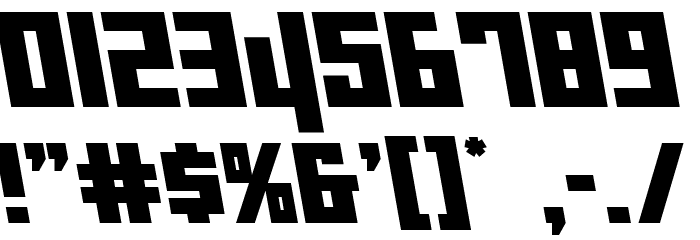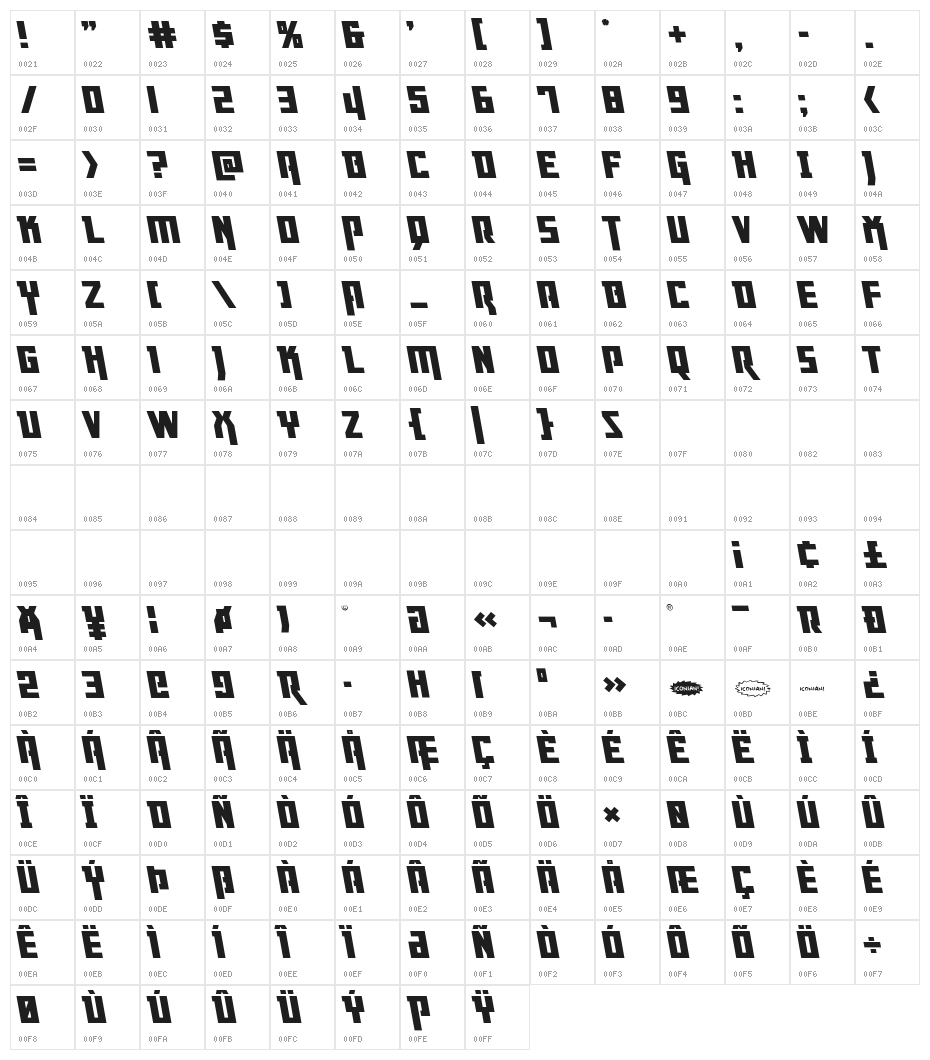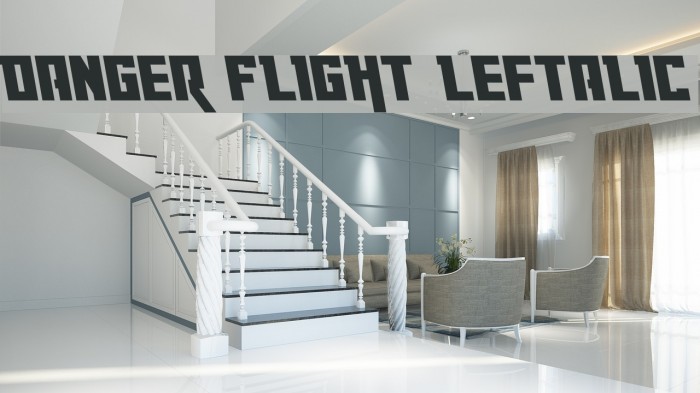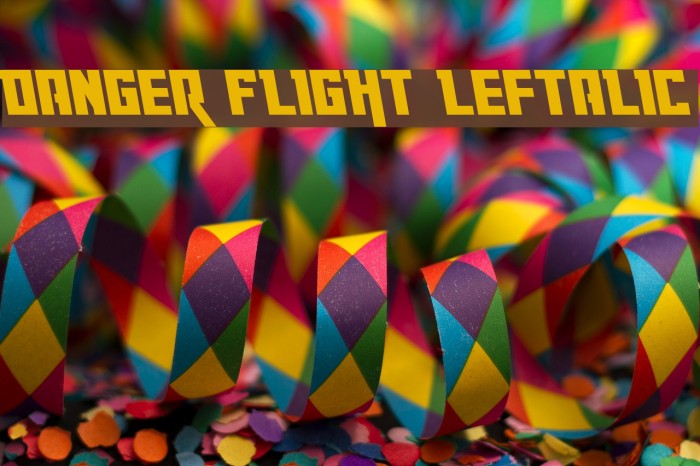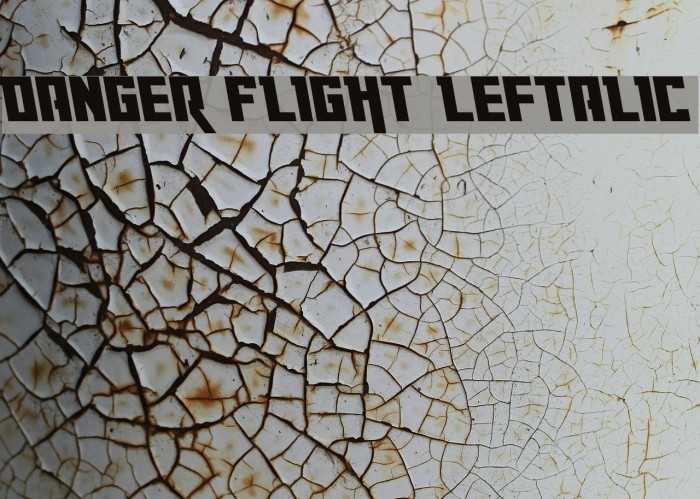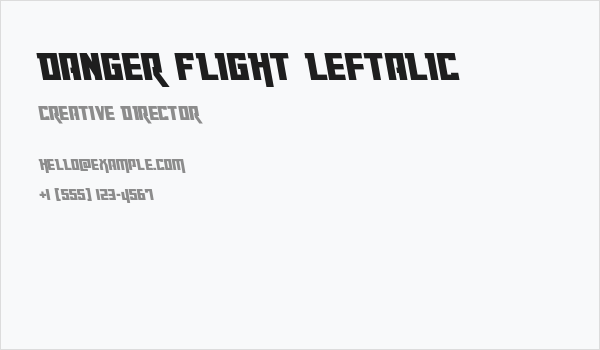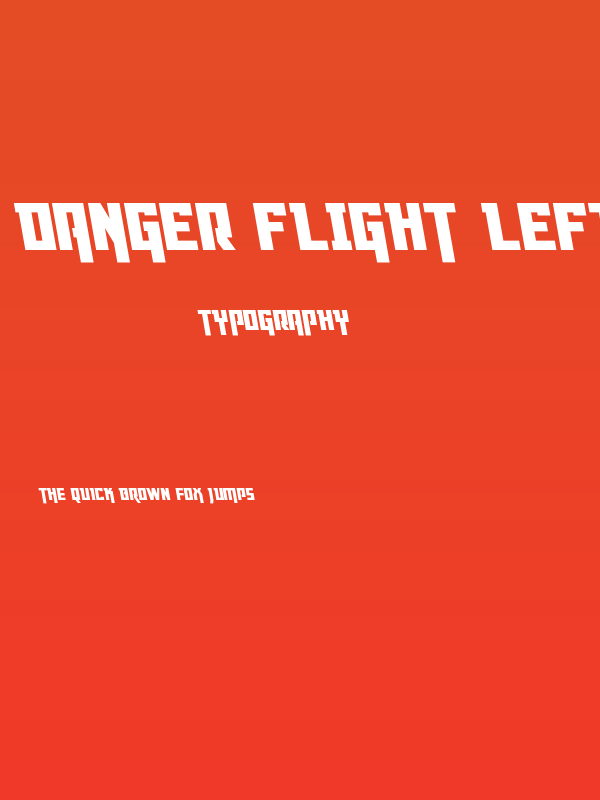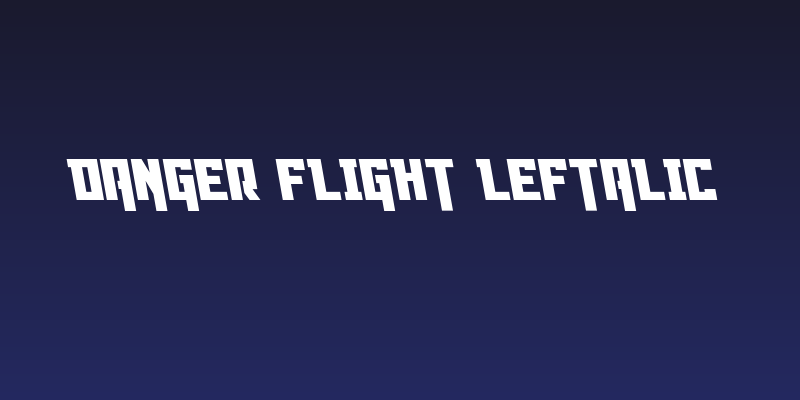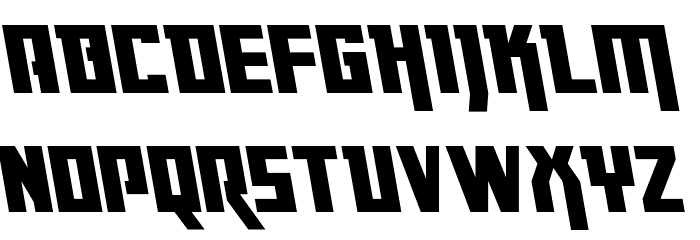
Danger Flight Leftalic Font
Danger Flight Leftalic Description
This font features a bold, angular design with a strong geometric influence. The characters are sharply cut with a futuristic style, creating a sense of movement and dynamism. The uppercase letters are particularly striking, with a blocky appearance that commands attention. The lowercase letters maintain the same angular style, ensuring consistency throughout. Numbers and special characters follow the same design principles, making them easily recognizable and cohesive with the rest of the font. This typeface is ideal for projects that require a modern, edgy look.
| Proposed Projects | Ideal for sci-fi themed designs, video game titles, posters, and branding that requires a modern, edgy aesthetic. |